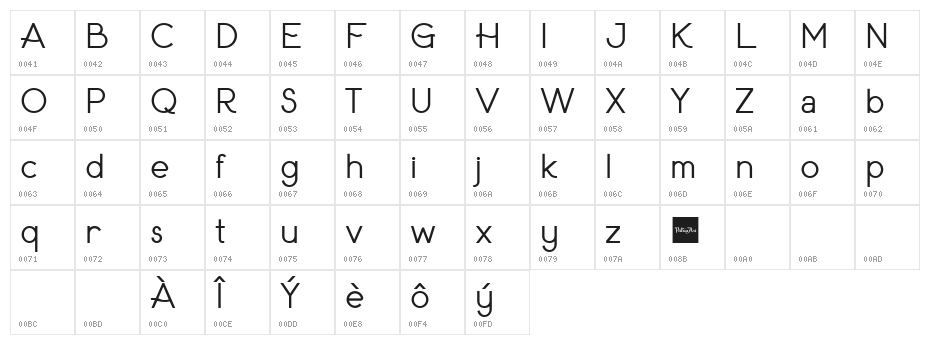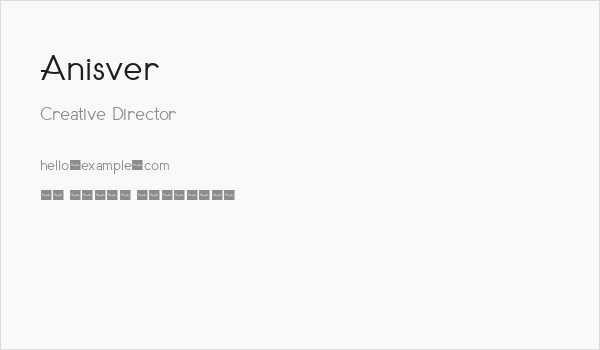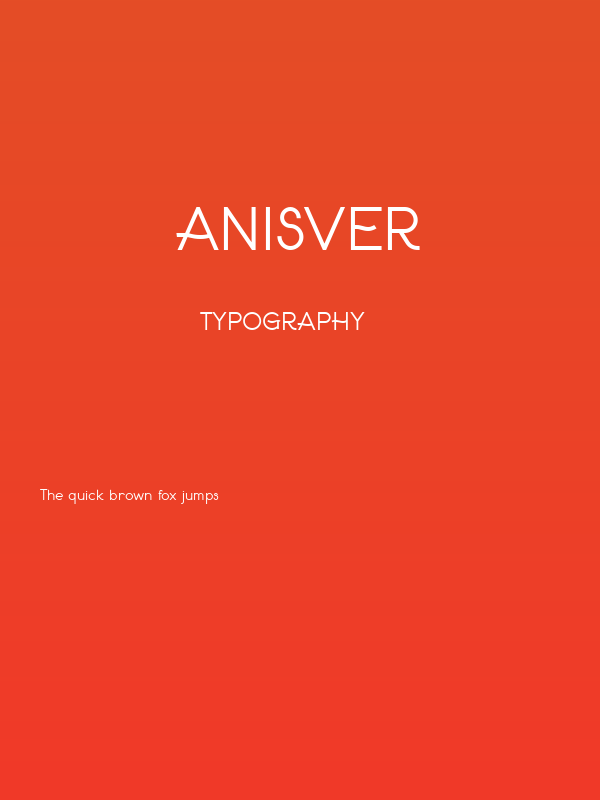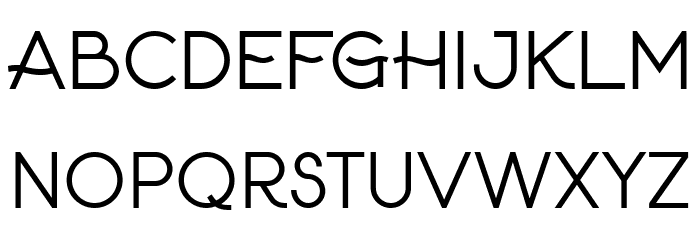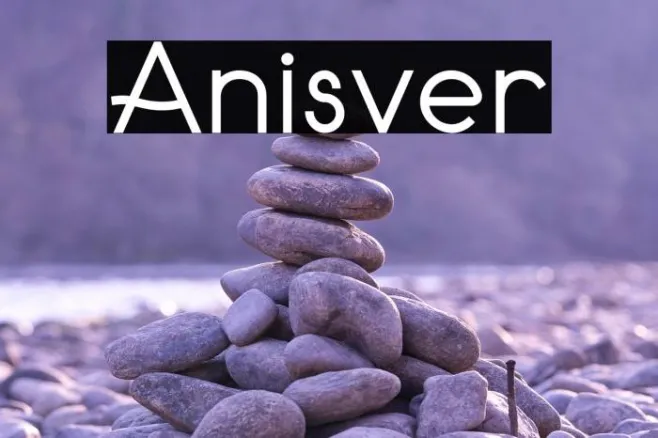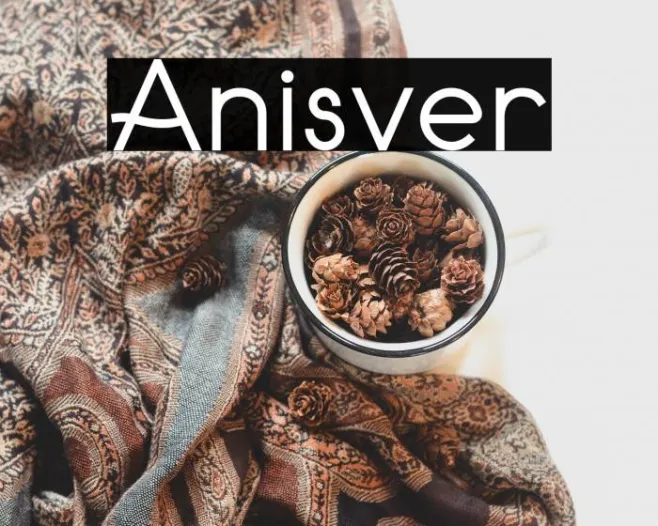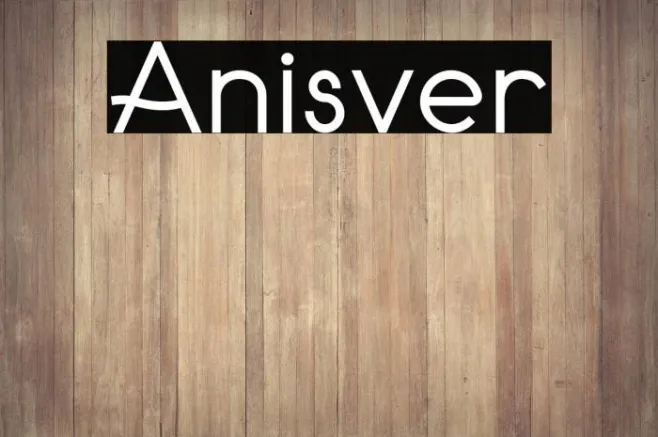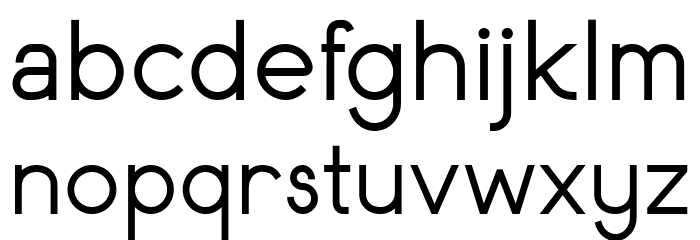
Anisver Font
Anisver Description
This font features a clean and modern sans-serif style with geometric influences. The characters are well-balanced with a consistent stroke width, giving it a harmonious appearance. The uppercase letters are bold and assertive, while the lowercase letters maintain a friendly and approachable look. The numerals are clear and easy to read, making them suitable for various applications. The special characters are designed to complement the overall aesthetic, ensuring versatility in usage. The font's simplicity and elegance make it ideal for both digital and print media.
| Proposed Projects | Ideal for branding, web design, advertising, and editorial projects. |